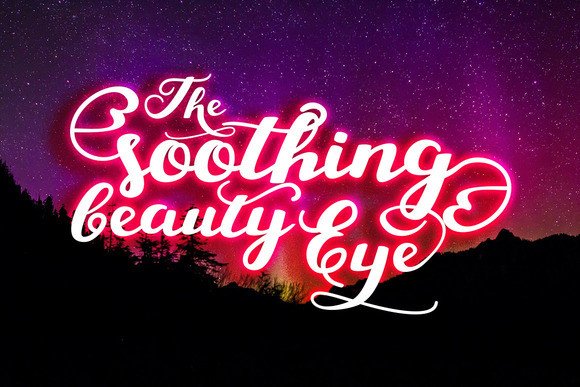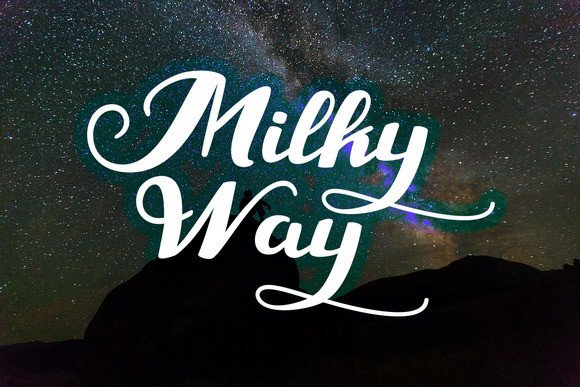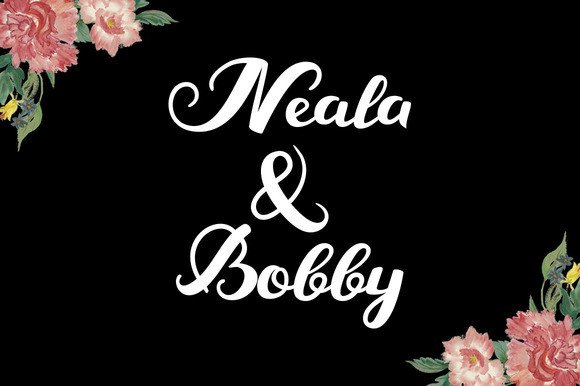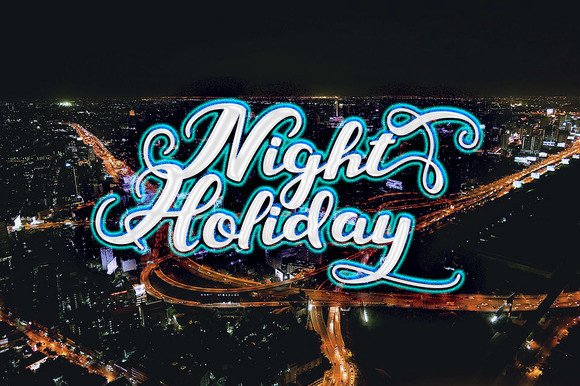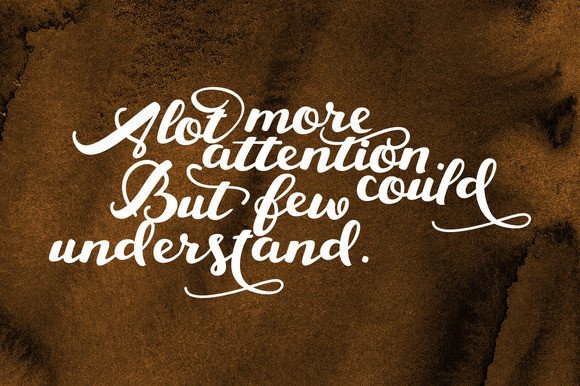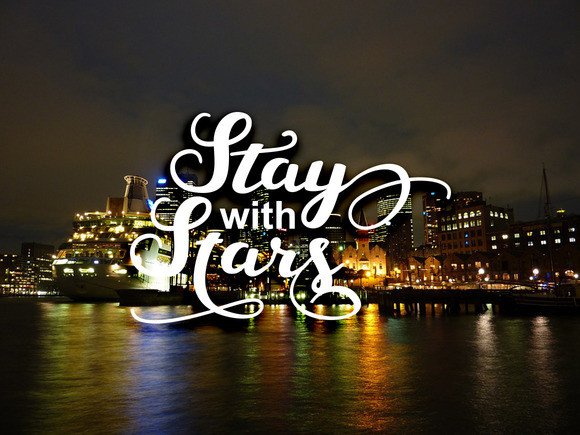
Introduction to Marisa Font
Marisa is a gorgeous calligraphy script font, suitable for a wide range of designs and styles.
This high contrast font is perfect for special occasion designs, and can give your designs an authentic and luxurious feel .
Key Features of Marisa Font